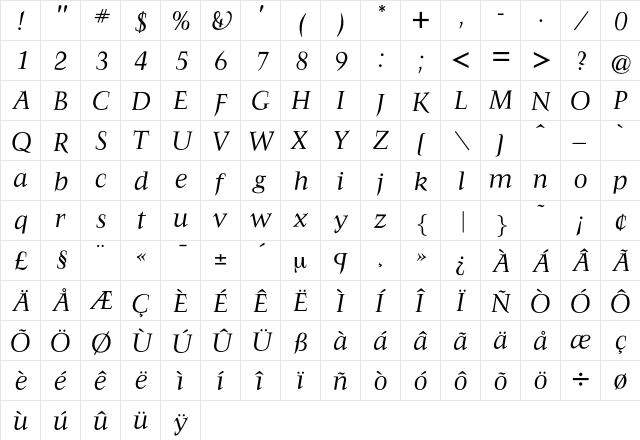
FrancoisRegularItalic Regular
Design Context for FrancoisRegularItalic Typeface
FrancoisRegularItalic takes a measured approach to typography — its balanced proportions and neutral character make it a reliable workhorse for both digital and print work. Its italic angle brings a sense of urgency and motion to the letterforms.
Pro Tip: Try FrancoisRegularItalic for annotation and caption copy alongside an upright companion — the contrast in angle creates a dynamic but ordered typographic system.